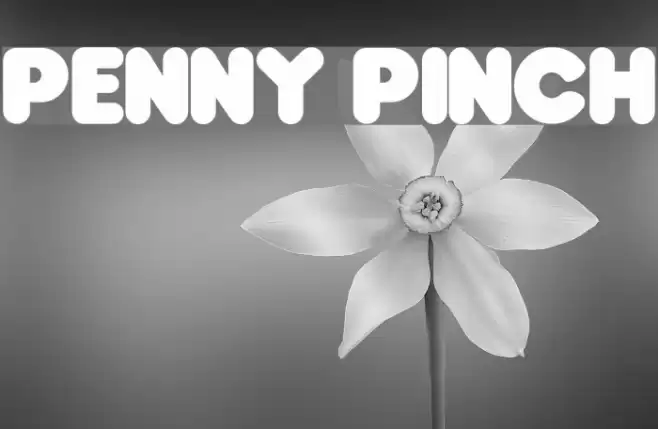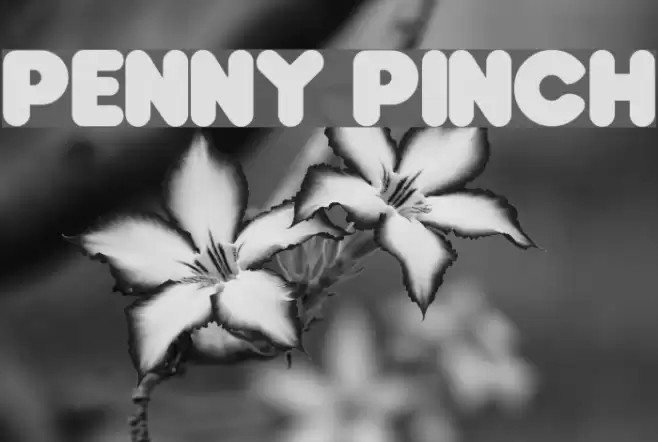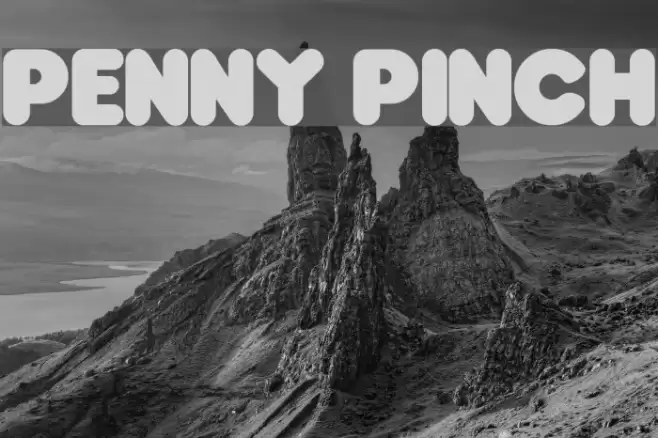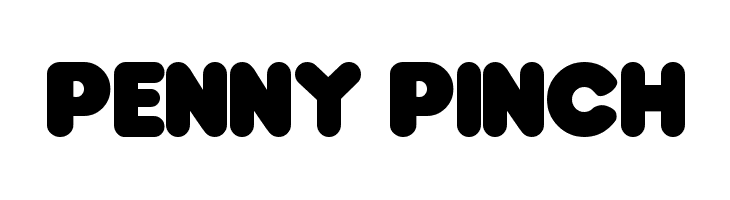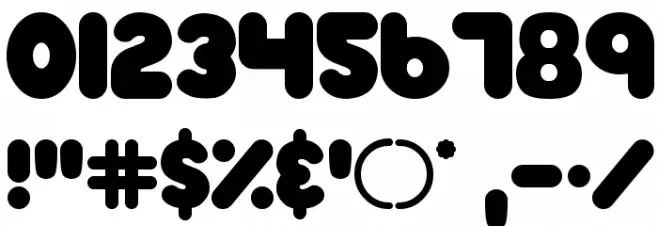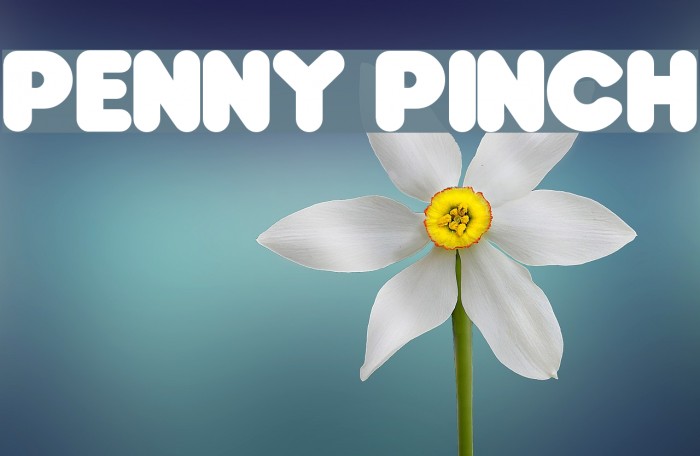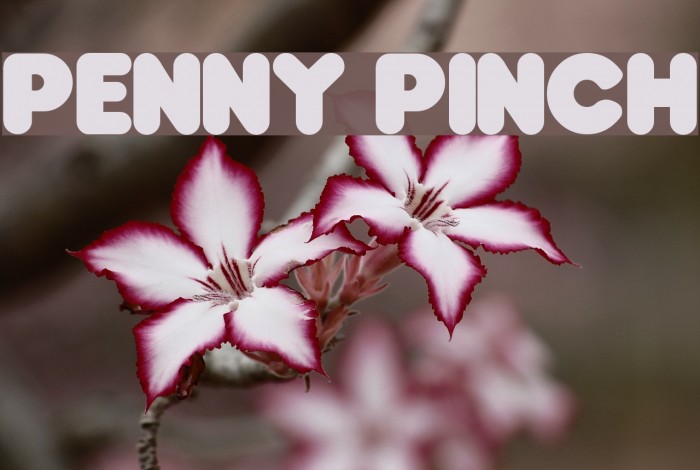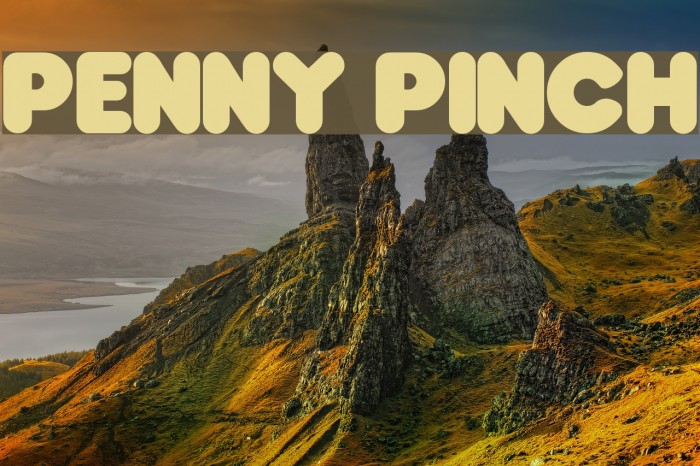
Penny Pinch
This font features bold, rounded characters with a playful and friendly appearance. The letters are uniformly thick, giving them a strong presence on the page. The rounded edges and consistent stroke width contribute to a soft, approachable look, making it ideal for designs that require a touch of whimsy or fun. The numbers and special characters follow the same design principles, ensuring a cohesive look across all elements. Its boldness and rounded style make it stand out, perfect for capturing attention in various design contexts.
A bold, rounded font with a playful and friendly appearance.
- Proposed Projects: Ideal for children's books, playful branding, posters, and social media graphics.
- Overall Style: Playful